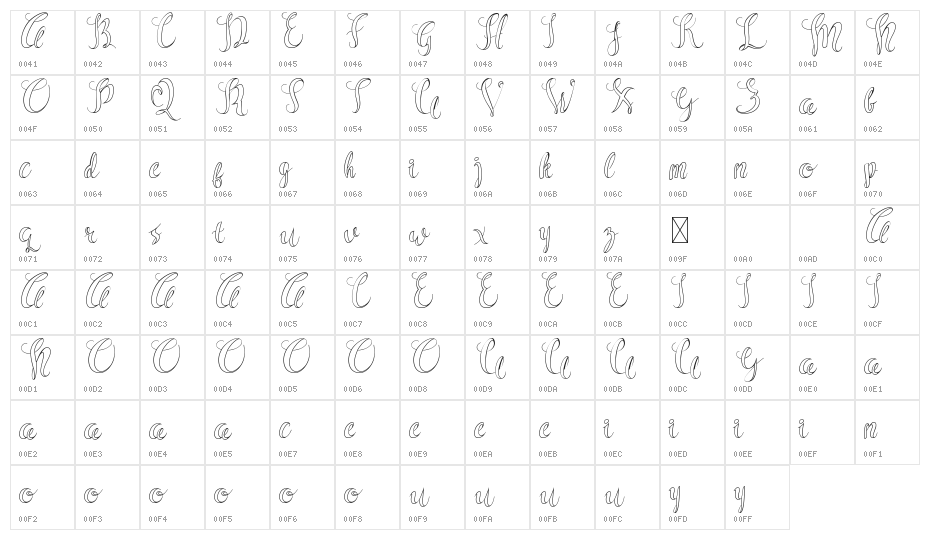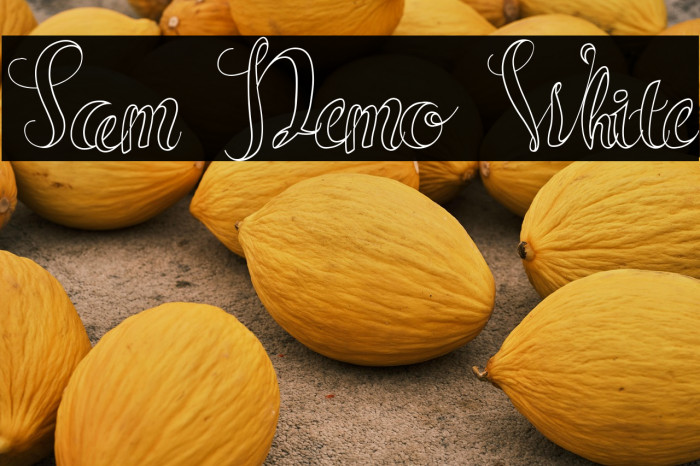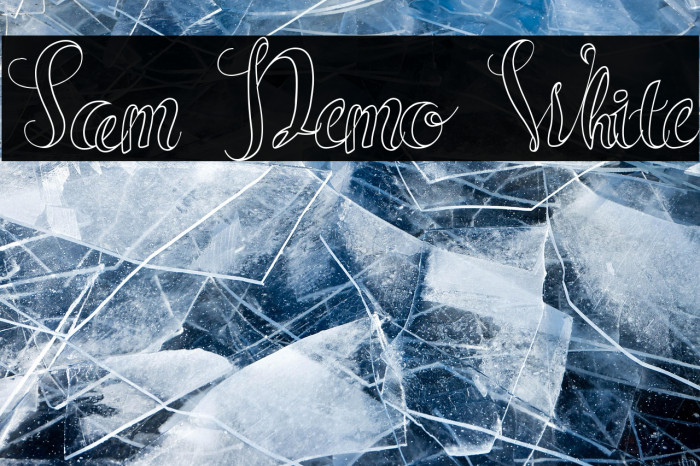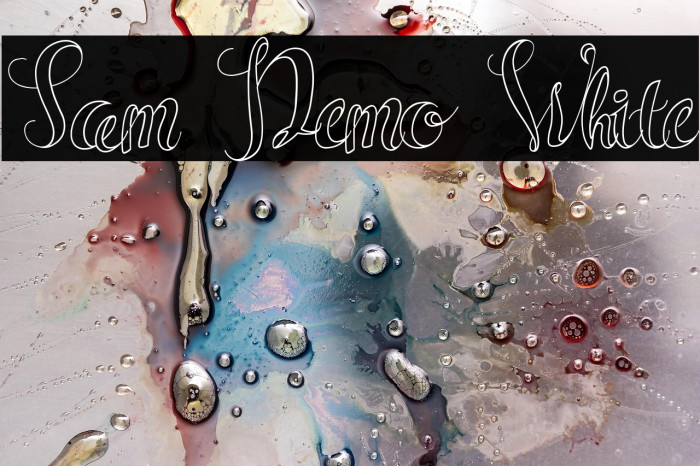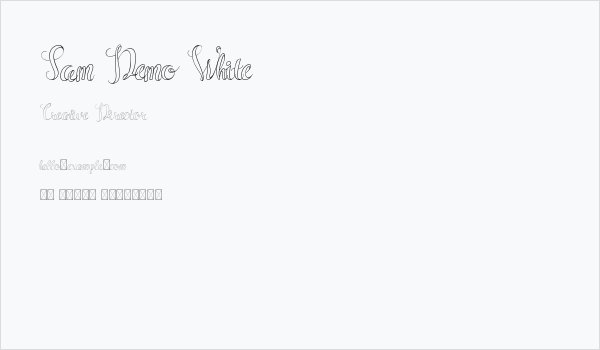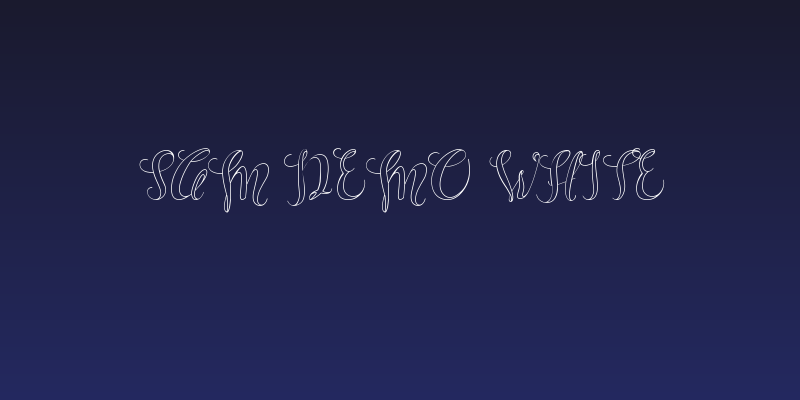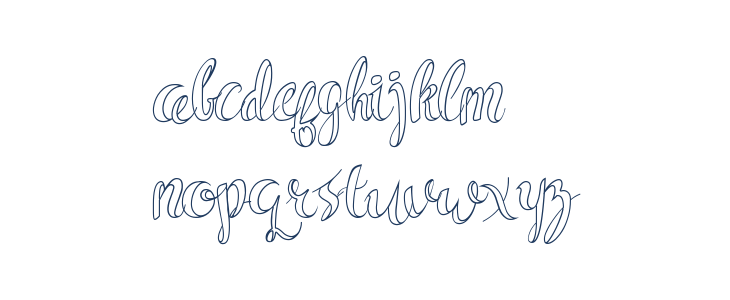
Sam Demo White Font
Sam Demo White Description
This font features an elegant and flowing script style, characterized by its intricate and decorative letterforms. The uppercase letters exhibit a graceful, looping design with extended flourishes, while the lowercase letters maintain a more compact yet equally ornate appearance. The overall aesthetic is reminiscent of classic calligraphy, with a modern twist that adds a unique flair. The font's delicate lines and curves create a sense of sophistication and artistry, making it suitable for projects that require a touch of elegance and refinement.